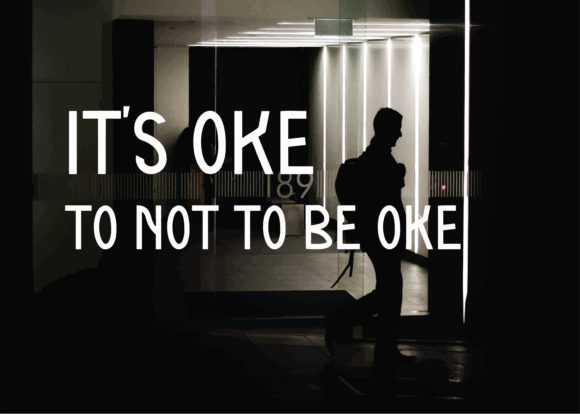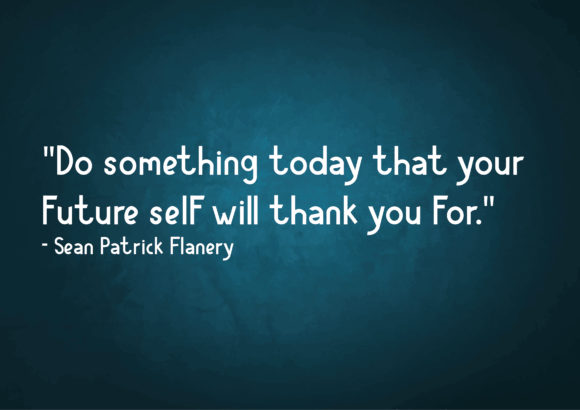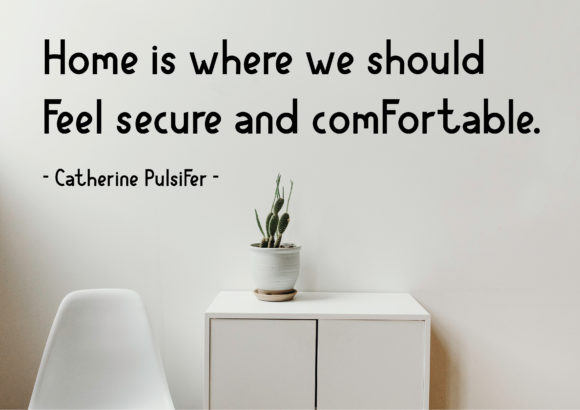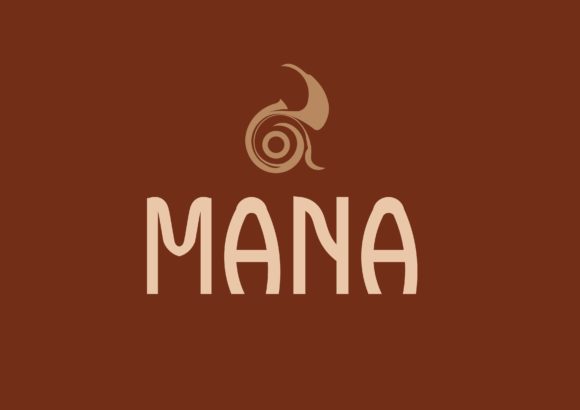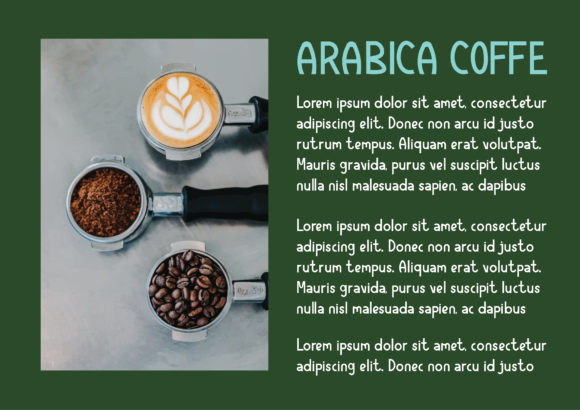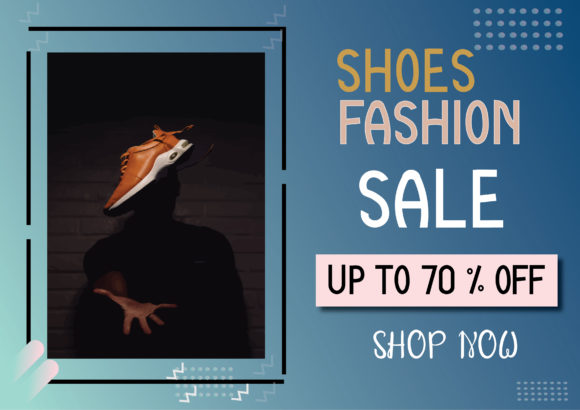
Introducing Argadana Font: The Perfect Balance of Style and Versatility
Are you tired of using fonts that are either too thin and fragile or too thick and overpowering? Look no further than Argadana Font, a simple and neat display font designed to elevate the beauty of your projects. With its balanced and varied strokes, Argadana Font is the perfect choice for designers and crafters seeking a versatile and stylish typography solution.
The Design Philosophy Behind Argadana Font
Argadana Font was created with a clear design philosophy in mind: to craft a font that is neither too thin nor too thick, but rather a perfect balance of both. This approach ensures that the font is legible and readable, while also adding a touch of elegance and sophistication to your designs. The result is a font that is both versatile and eye-catching, making it suitable for a wide range of applications.
Key Features of Argadana Font
- Balanced strokes: Argadana Font features balanced strokes that are neither too thin nor too thick, creating a harmonious and visually appealing effect.
- Varied typography: The font offers a range of typography options, including uppercase and lowercase letters, numbers, and punctuation marks.
- Simple and neat design: Argadana Font boasts a simple and neat design that makes it easy to read and use in a variety of contexts.
- High legibility: The font’s clear and balanced design ensures high legibility, even at smaller font sizes.
Use Cases for Argadana Font
Argadana Font is a versatile typography solution that can be used in a wide range of applications, including:
- Graphic design projects: Use Argadana Font to add a touch of elegance and sophistication to your graphic design projects, such as brochures, posters, and business cards.
- Crafting and DIY projects: Argadana Font is perfect for crafters and DIY enthusiasts who want to add a personal touch to their projects, such as handmade cards, scrapbook pages, and journal entries.
- Digital design: Use Argadana Font in your digital designs, such as website headers, social media graphics, and email newsletters.
Why Choose Argadana Font?
With so many fonts available, why choose Argadana Font? Here are just a few reasons:
- Unique design: Argadana Font offers a unique and distinctive design that sets it apart from other fonts.
- Versatility: The font’s balanced and varied strokes make it suitable for a wide range of applications and design contexts.
In conclusion, Argadana Font is a simple and neat display font that offers a perfect balance of style and versatility. With its balanced strokes, varied typography, and high legibility, Argadana Font is the perfect choice for designers and crafters seeking a reliable and stylish typography solution. Whether you’re working on a graphic design project, crafting and DIY project, or digital design, Argadana Font is sure to enhance the beauty of your projects.